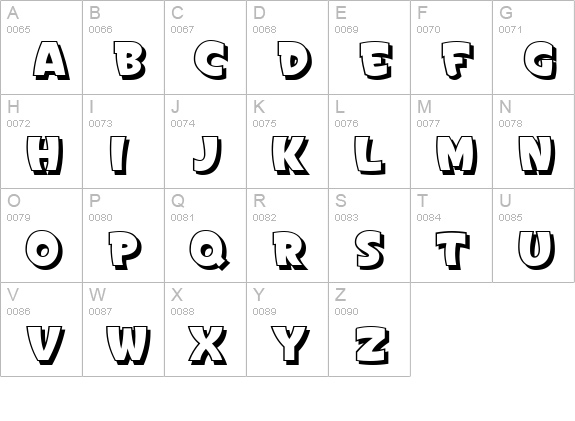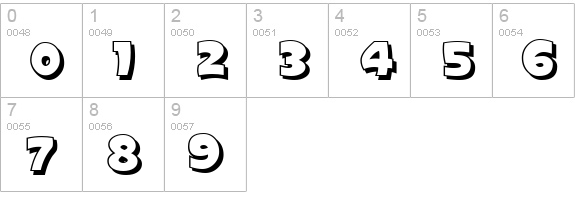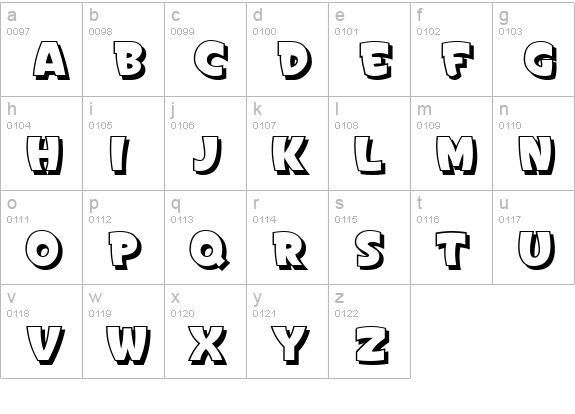
Sign Painter's Gothic Shaded JL Font Details
Sign Painter's Gothic Shaded JL font is a timeless typeface that effortlessly captures the essence of classic sign painting. With its bold and distinctive letterforms, this font adds a touch of vintage charm to any design project. The thick, shaded strokes give each character a three-dimensional effect, creating a sense of depth and dimension. This font is perfect for creating eye-catching signage, posters, logos, and more. Whether you're designing for a retro-inspired brand or simply want to add a touch of nostalgia to your designs, Sign Painter's Gothic Shaded JL font is the perfect choice. And the best part? This font is available for free download at FontsMarket.com! You can easily bring this unique typeface into your design toolkit without spending a dime. Embrace the beauty of hand-painted signs and let Sign Painter's Gothic Shaded JL font elevate your designs to a whole new level of sophistication. With its wide range of characters, including uppercase and lowercase letters, numbers, punctuation marks, and special symbols, this font offers versatility and flexibility for all your design needs. Its clean and legible appearance ensures readability at any size, making it suitable for both digital and print applications. Don't miss out on the opportunity to enhance your designs with the timeless appeal of Sign Painter's Gothic Shaded JL font. Download it for free at FontsMarket.com and let your creativity shine with this remarkable typeface.